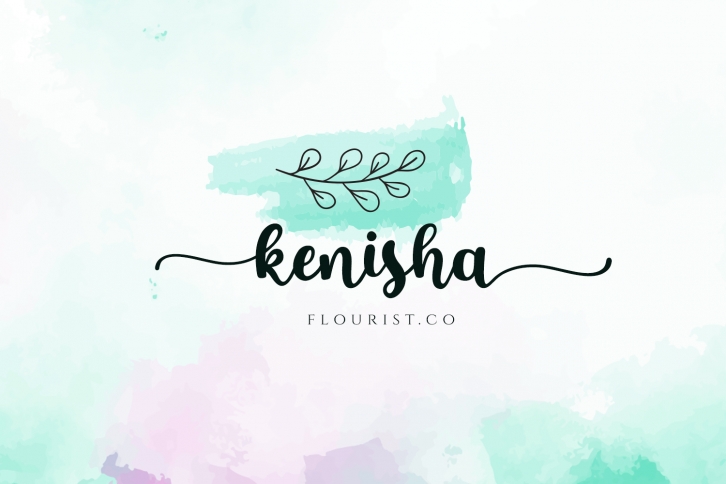
We are proud to present our new font. It's name is Gardenia Script
Gardenia Script is a beautiful calligraphy font with swashes. It is a cute a fun font.Â
But can also be used invitation, logos & branding, photography, advertisements, watermark, social media posts, product packaging, product designs, label, wedding designs, stationery, special events or anything that need handwriting taste.
Gardenia Script Font Features :
PUA Encoded Characters - Fully accessible without additional design software.
Fonts include multilingual support for; Afrikaans, Albanian, Catalan, Danish, Dutch, English, Icelandic, Italian, Spanish, Portuguese, German, Swedish, Norwegian, Polish, Indonesian, Zulu and etc